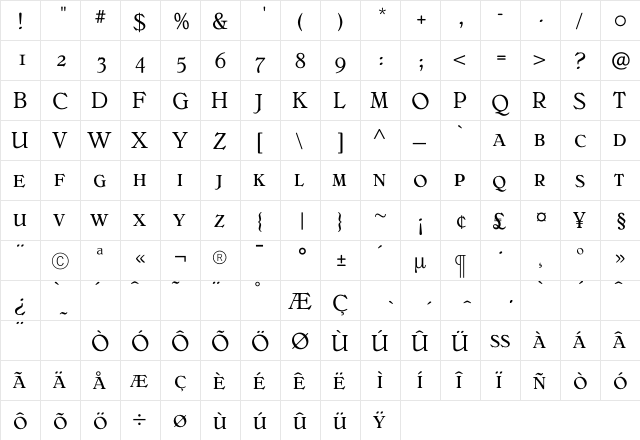
BelliniOriginalExpert Regular
Design Context for BelliniOriginalExpert Typeface
BelliniOriginalExpert is a composed and adaptable typeface that performs quietly and consistently across a wide range of design contexts.